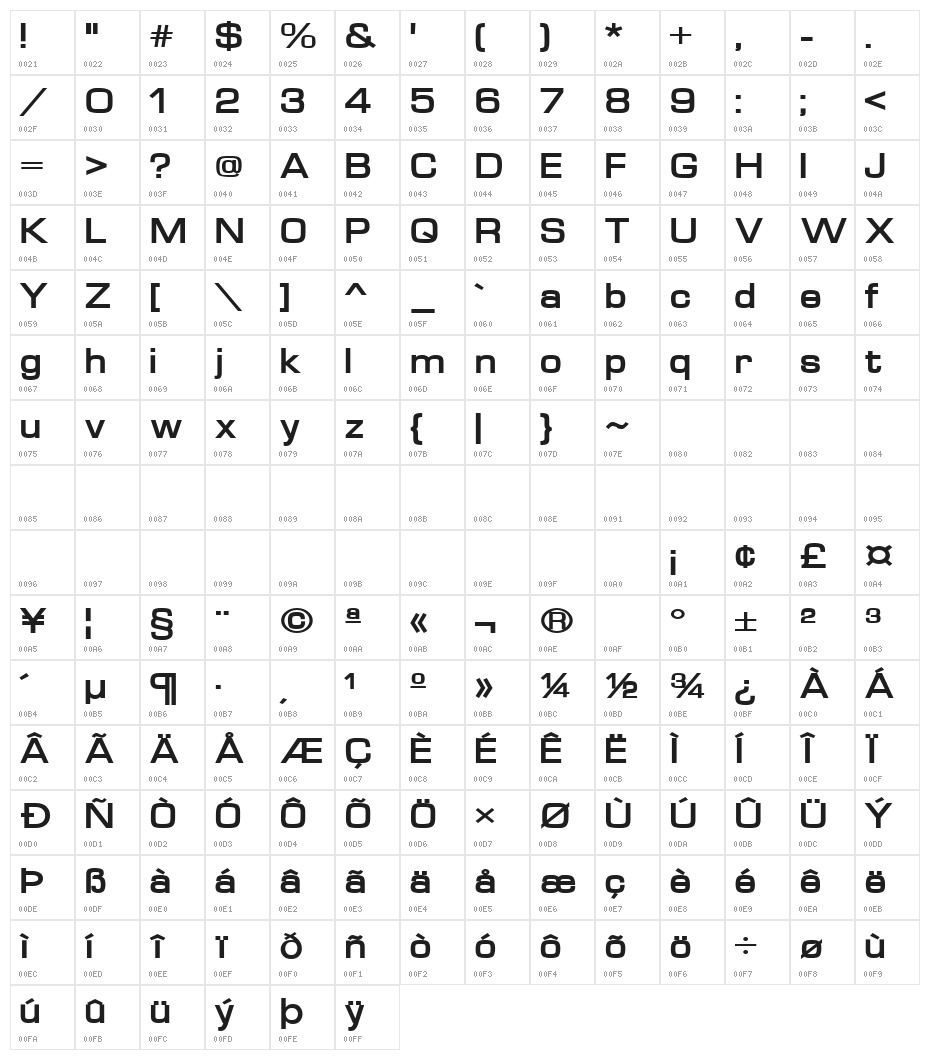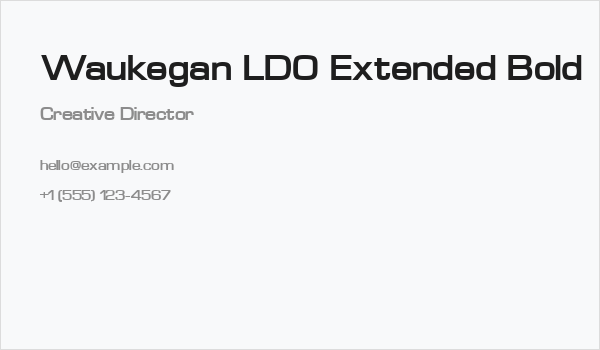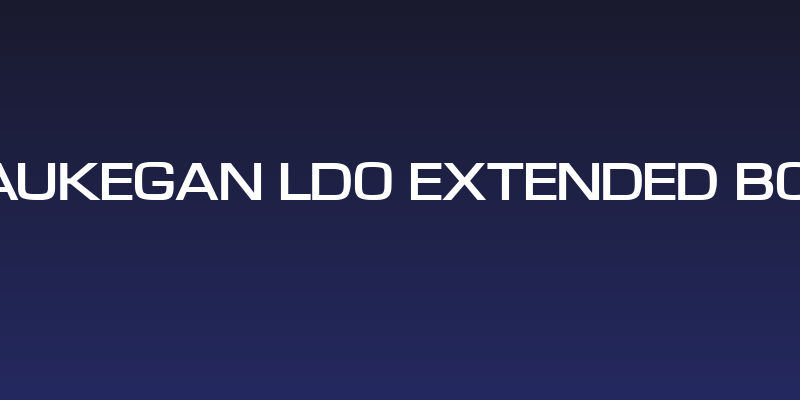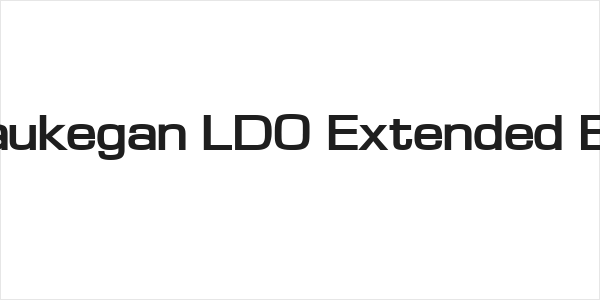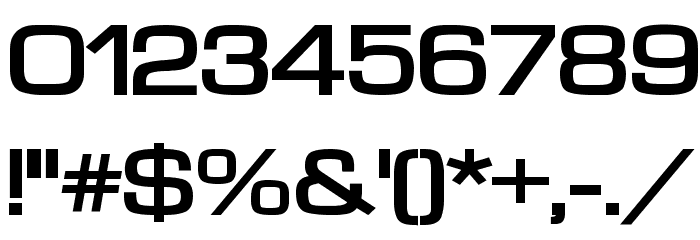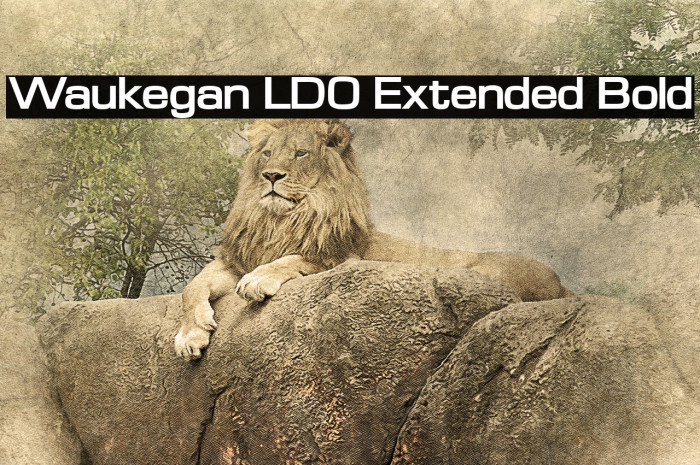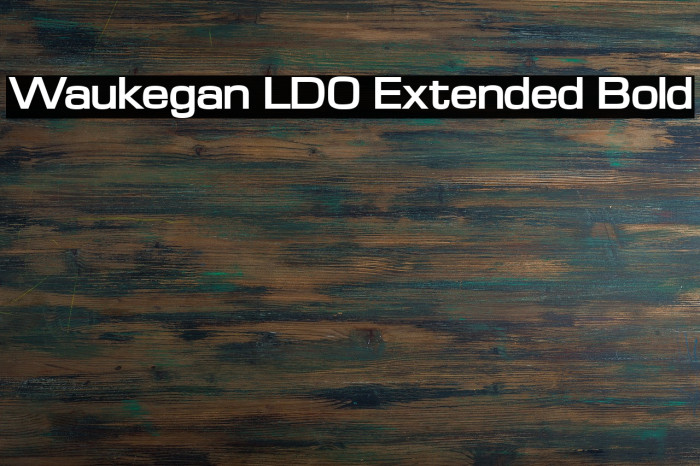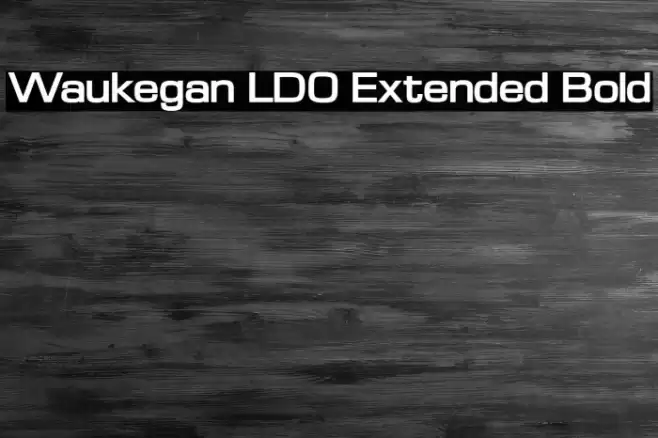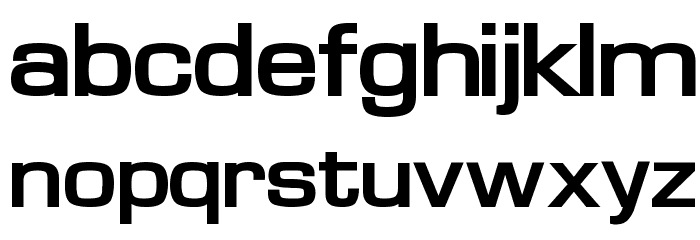
Waukegan LDO Extended Bold Font
Waukegan LDO Extended Bold Description
This font features a bold and extended style, characterized by its clean and modern sans-serif design. The letters are evenly spaced with a consistent stroke width, providing a uniform appearance. The uppercase and lowercase letters maintain a geometric structure, enhancing readability. The numerals are clear and distinct, matching the overall boldness of the font. Special characters are well-integrated, maintaining the font's cohesive look. This font's extended width allows for a strong visual impact, making it suitable for various design applications.
| Use Case | Headlines, Logos, Advertising |
| Proposed Projects | Ideal for headlines, branding, advertising, and signage where a strong and modern presence is desired. |